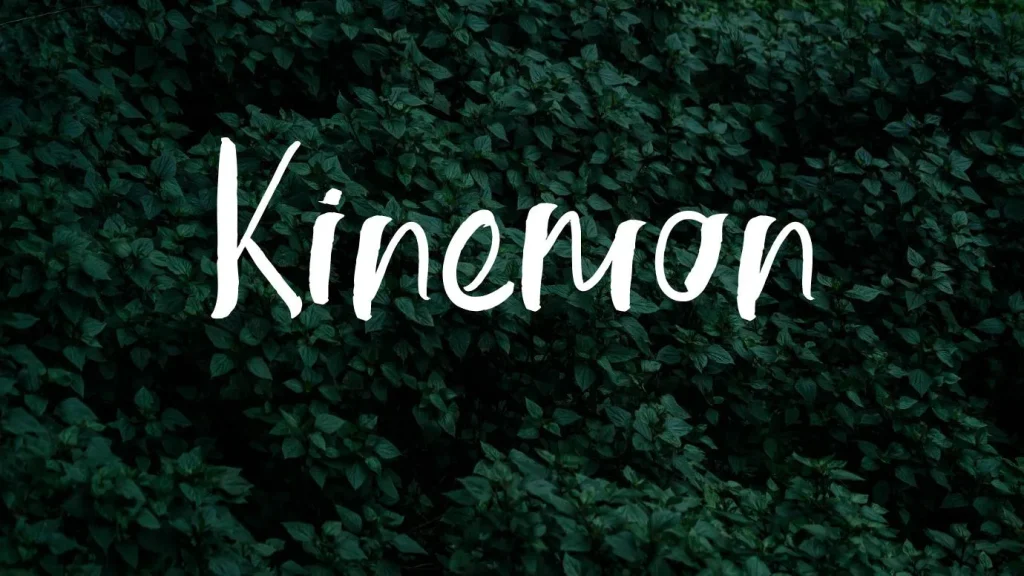
FactoryType created this nice unique and elegant script style. Whether you are a web designer, Kinemon Font is an adjustable font for a diversity of ventures.
As the main idea behind creating this typeface is to provide unique but functional designs that would be ideal choices among different fonts, the designer wanted to create a typeface that would provide unique yet functional designs.
More Details About Kinemon Font
It is Ideal for publication projects such as company cards, flyers, and posters, you can use this typeface. If you want the latest typeface over a sleek look for your project then it is the best choice.
Any occasion will be enhanced by this beautiful, typeface. If you want to add a little romance to your wedding invitations or simply want to make a loved one’s birthday special, then this typeface is for you. Make your design project Splatter with this typeface. Use the levi brush font with its replacement or as a pairing function.
Characters Map of the Kinemon Font
Usage of Kinemon Font in Brands Projects
The typeface can be utilized for equally electronic also printed pattern projects. Additionally, appropriate for headings, body text, and symbols. Also supreme for tagging, advertising, and packaging patterns.
Additional sites where you can utilize this typeface include pages, pamphlets, flyers, billboards, company cards, displays, books as well and journals. You can create this font using an online font generator tool. Ideal for publication projects such as company cards, flyers, and posters.
What type of font Is Kinemon?
Kinemon font can be used in a wide variety of graphic design applications. It is script text style. The letters will be the same after being introduced in your system, either for seeing or for printing.